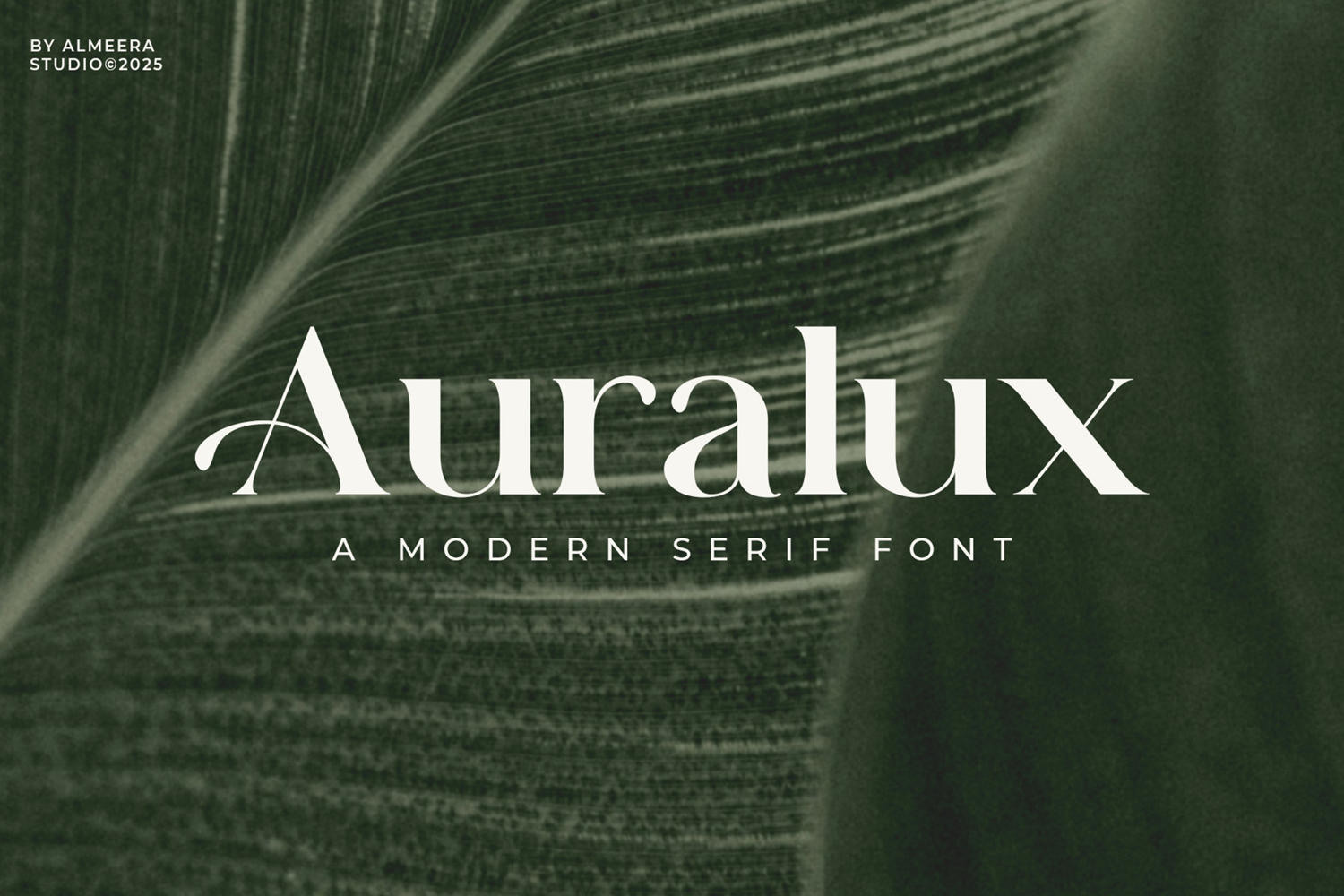
Auralux
Introducing Auralux - Modern Serif Font. Auralux is a modern display serif font, This type of font is very suitable for your various needs such as branding projects, logos, social media posts, advertisements, labels, product packaging, photography, wedding designs, watermarks, invitation product designs, stationery, and any project.
FEATURES:
- Multilingual support
- Numerial